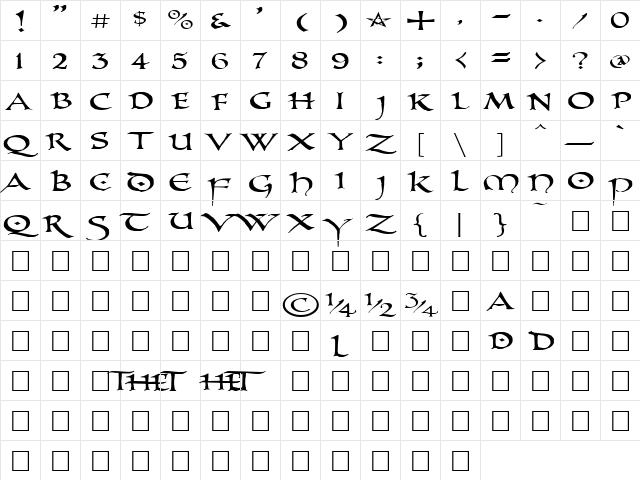
PR Uncial Alt Caps 2 Normal
Design Context for PR Uncial Alt Caps 2 Typeface
PR Uncial Alt Caps 2 is a composed and adaptable typeface that performs quietly and consistently across a wide range of design contexts.